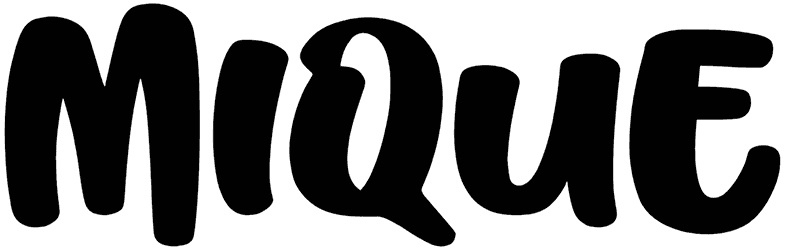
Mique Font
Designing an artwork to be specifically cute and childish for cartoons, children’s storybooks, or toy advertisements isn’t hard if you have the right font. Mique is here to do exactly that job, and there isn’t a better cartoon font that is able to handle your business with this quality.
By downloading this font, you may not get the lowercase, but the collection offers you uppercase, numbers, and punctuation marks.